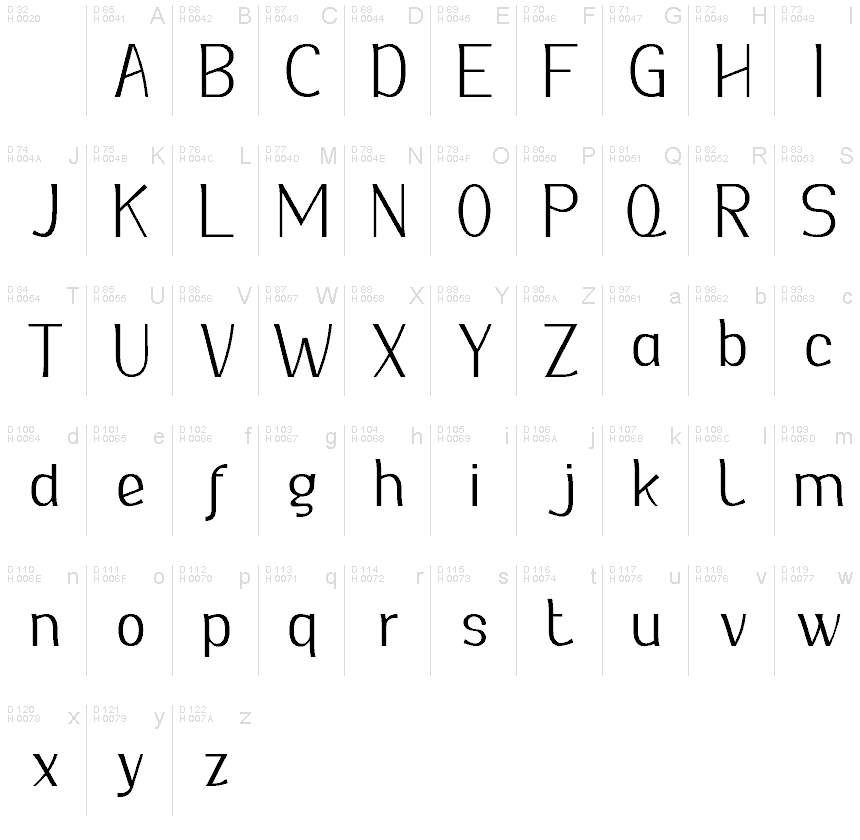
Your Everyday Demo Thin
Your Everyday Thin font by Noah Type is a minimalist and elegant sans serif with geometric influences. Characterized by its airy design, the font consists of clean lines, a light weight, and modern styling. The typeface is fit for business and banking use! But it also supports many design projects.
A fine balance between visual beauty and harmony allows Your Everyday Thin to communicate effectively in logos, branding designs, letterheads, promotional items etc. It is also great on digital platforms where it can be used for app development or website coding.